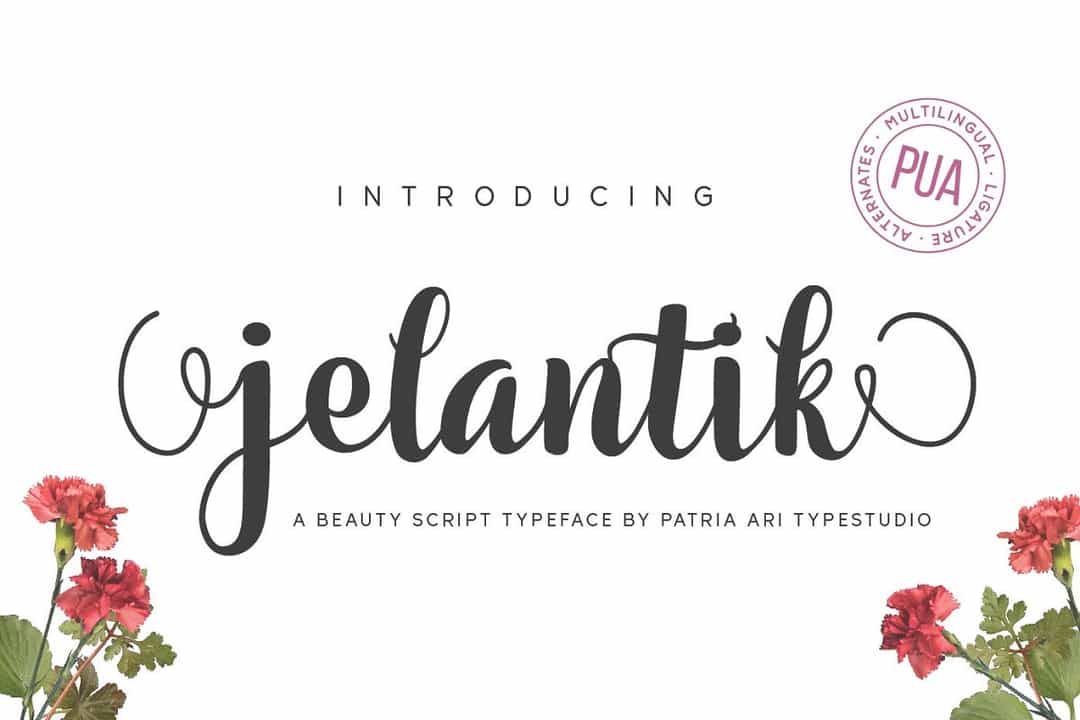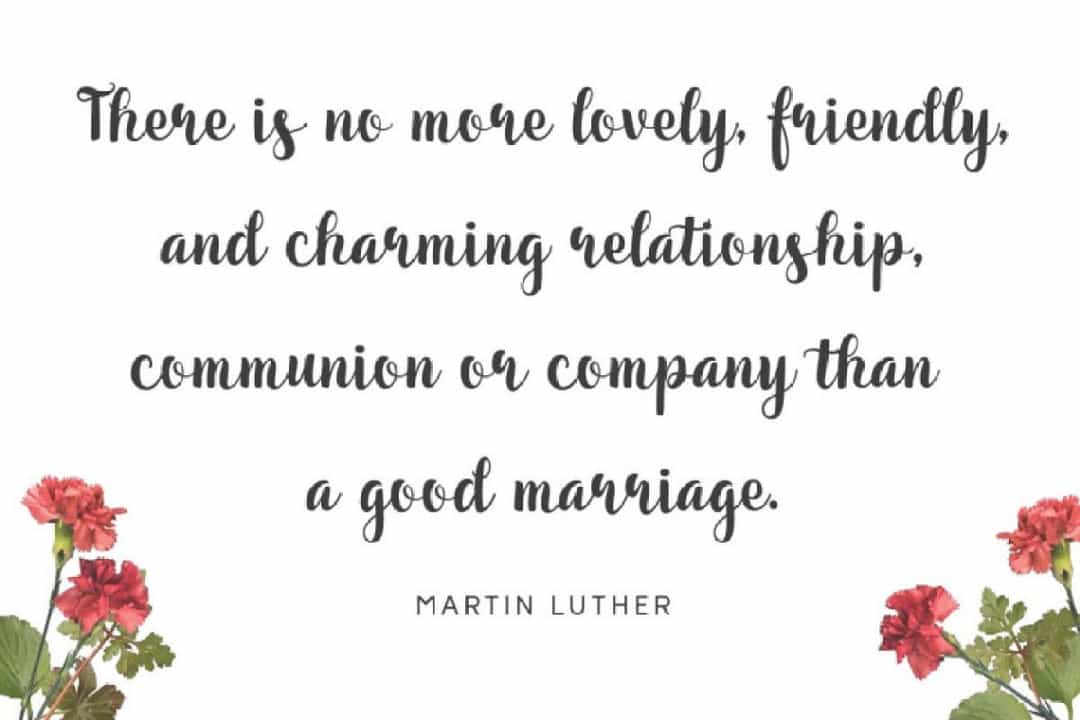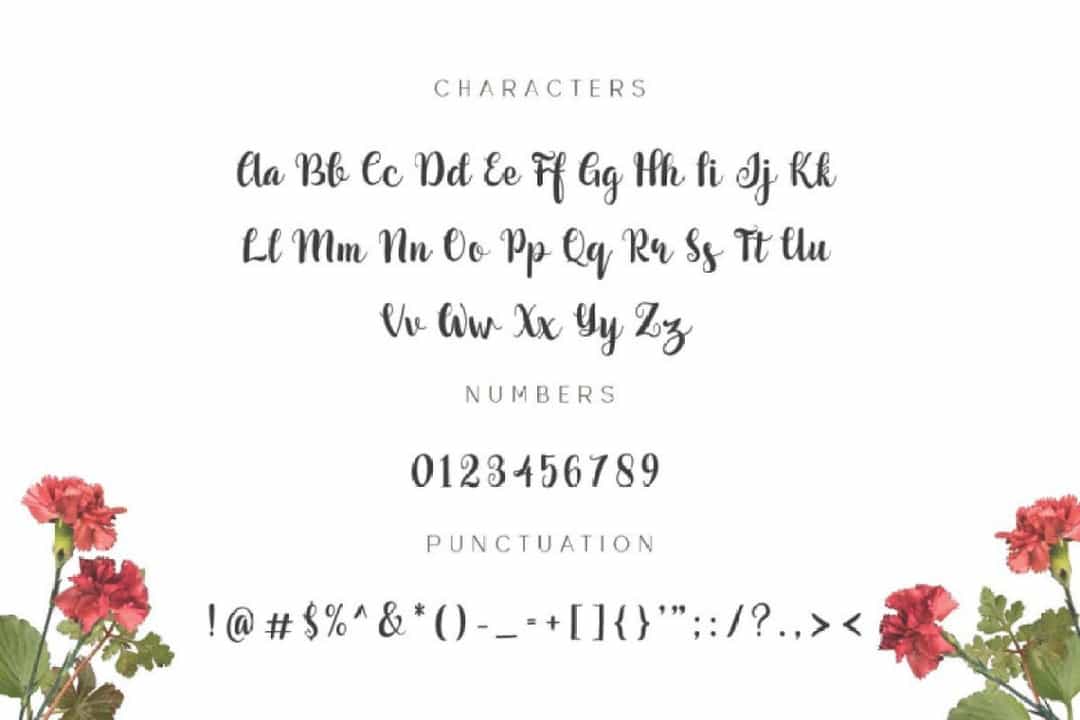
Jelantik is an elegant script font which has cute swash characters, so it is ideal for logo designs, branding, weddings, and advertising. It is also suitable for social media posts packaging of products and designs, labels, photographs’ watermarks, invitations, stationery, or all tasks that need handwriting.